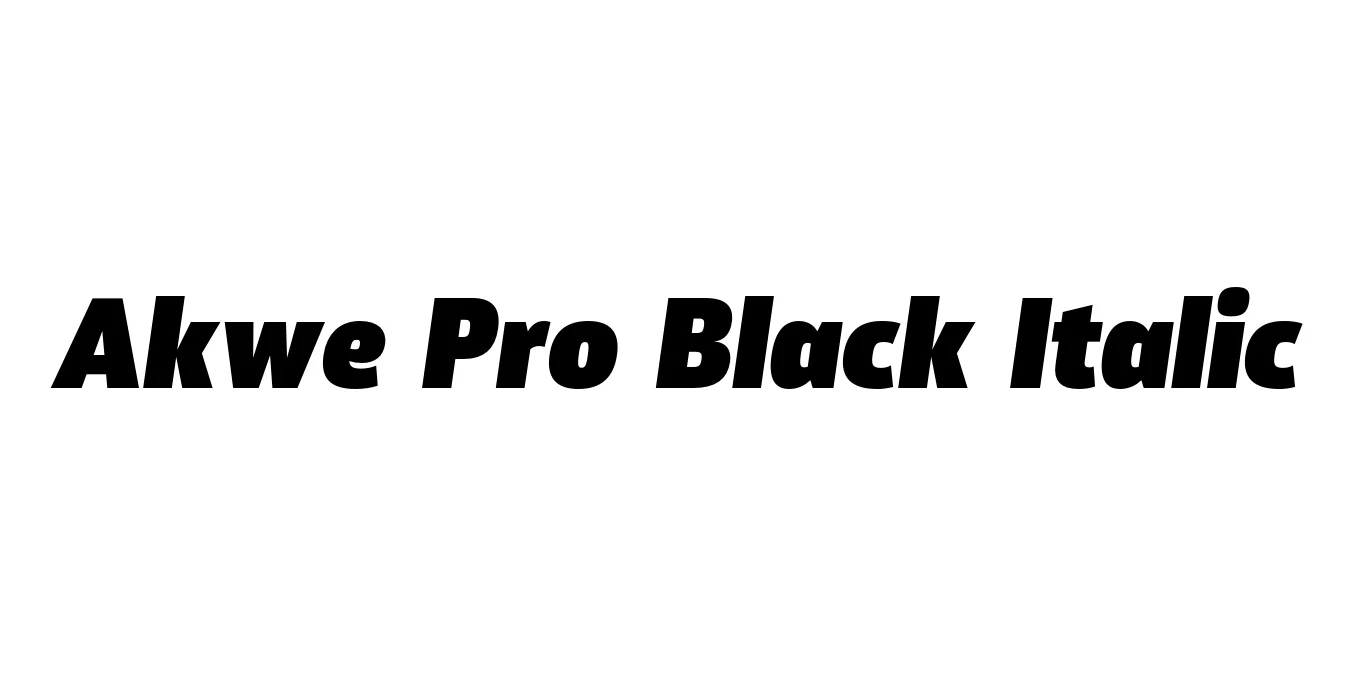
Akwe Pro Black Italic
Designed by Jan Tonellato
Akwe Pro Black Italic is a prominent member of the expansive Akwe Pro superfamily, a typeface family engineered to bridge the gap between geometric precision and humanist warmth. This specific weight, the Black Italic, is designed to command attention with its heavy stroke weight and dynamic 12-degree slant. It features open counters and a generous x-height, which ensures that despite its significant visual density, the typeface maintains exceptional legibility in both print and high-resolution digital environments.
The design philosophy behind Akwe Pro focuses on versatility across modern media. The Black Italic variant is particularly effective for high-impact communication, offering a sense of urgency and forward motion that is ideal for contemporary editorial design. Whether used in large-scale advertising or as a distinctive element in a corporate identity system, its refined curves and balanced proportions provide a professional and sophisticated aesthetic that sets it apart from more rigid geometric sans-serifs.
Akwe Pro Black Italic Best Uses
Ideal for bold, aggressive headlines that require a sense of speed and power.
Perfect for creating strong, recognizable logotypes for technology and sports brands.
Excellent for use in pull-quotes or section headers in luxury magazines.
Highly effective for outdoor signage and promotional banners where visibility is key.